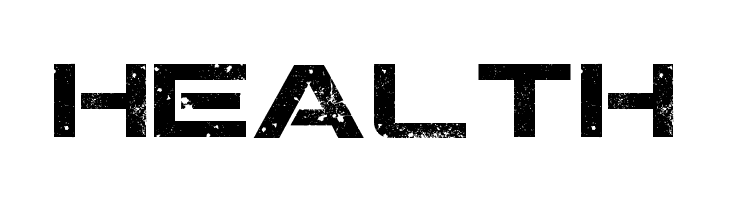
CGF Locust Resistance Font
Font by CGF Chris Garrett Fonts - Chris Garrett
A bold, geometric font with a futuristic and industrial style, featuring a distressed variant.
Armata Hairline Font
A modern, minimalist typeface with uniform stroke widths and geometric influences.
Resistance is Futile Font
Font by imagex
A bold, geometric font with diagonal line patterns for a striking, industrial look.
Resistance Until The End Font
Font by Galdino Otten - galdinootten.com
A bold, hand-drawn font with an expressive and playful style.
Resistance Font
A bold, distressed font with a rugged, industrial texture.
Armata Hairline Oblique Font
A sleek, modern oblique font with hairline strokes and a minimalist aesthetic.
Water Resistant Regular Font
A bold, angular serif font with a dramatic and artistic flair.
resistance Regular Font
Font by frankfurtwest
A bold, geometric font with angular edges and a modern, digital aesthetic.
Winter Resistance Font
Font by Woodcutter
A bold, condensed font with a distressed, vintage texture.
RESIST Font
Font by Tokokoo Studio
A bold, geometric font with sharp angles and high contrast strokes.